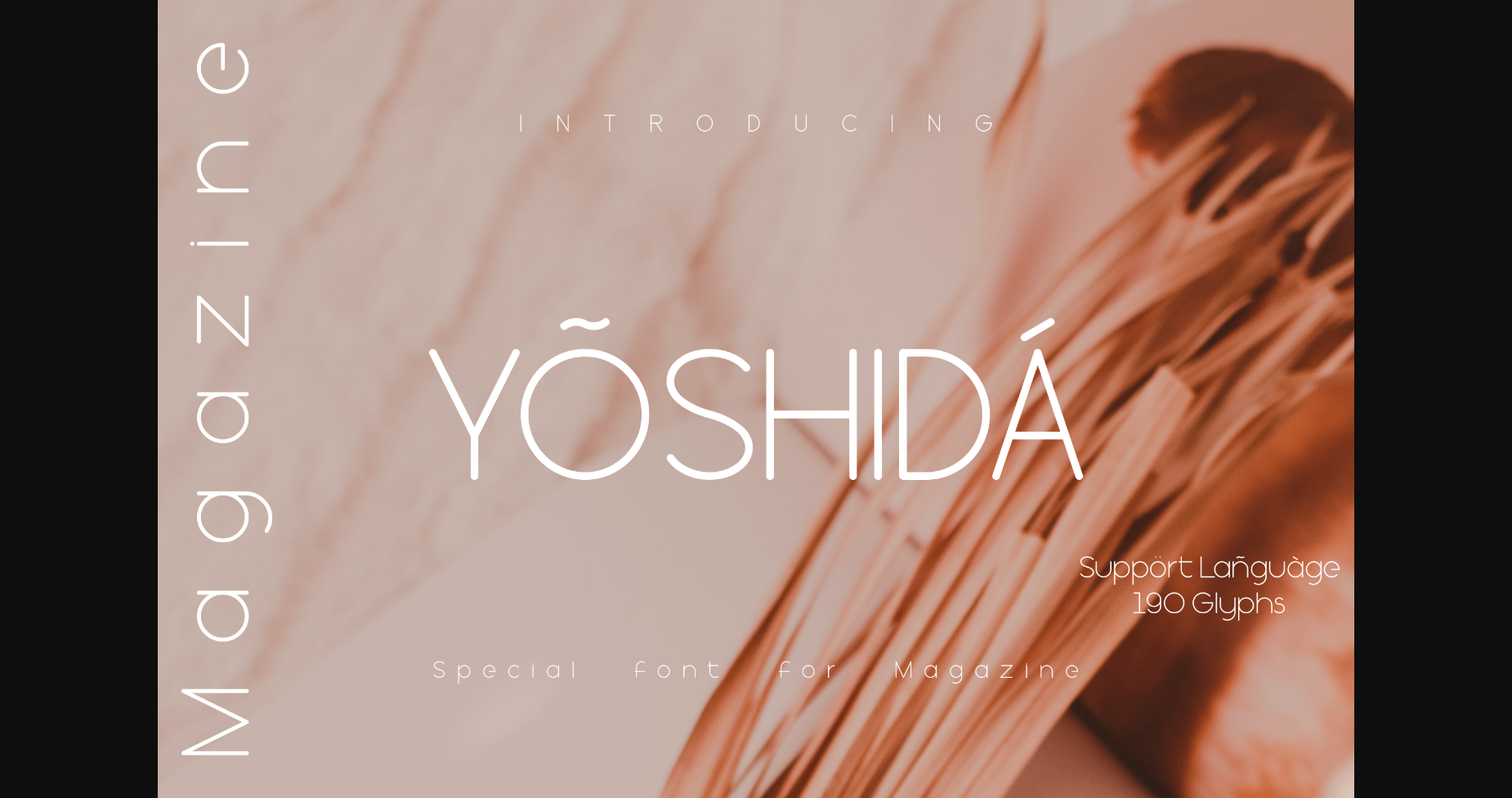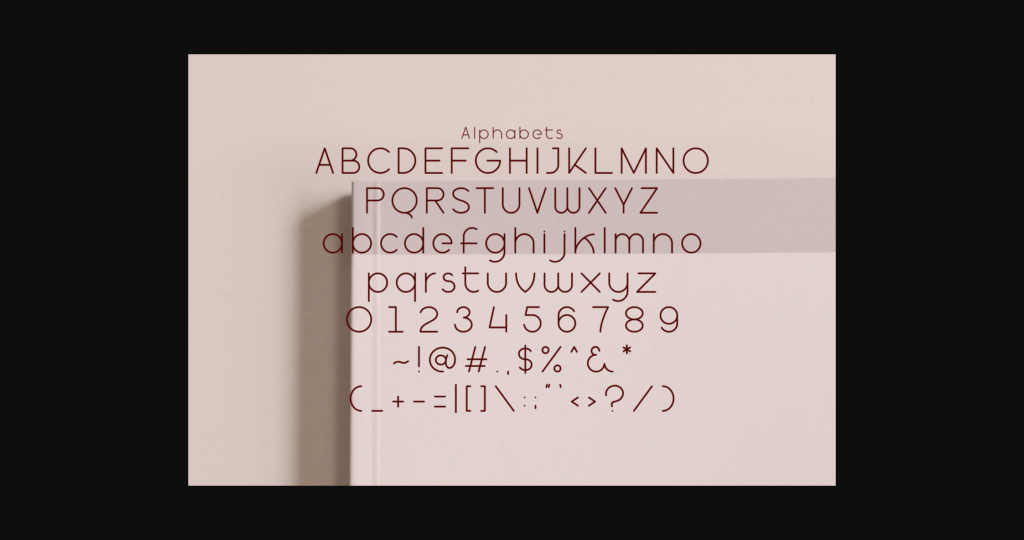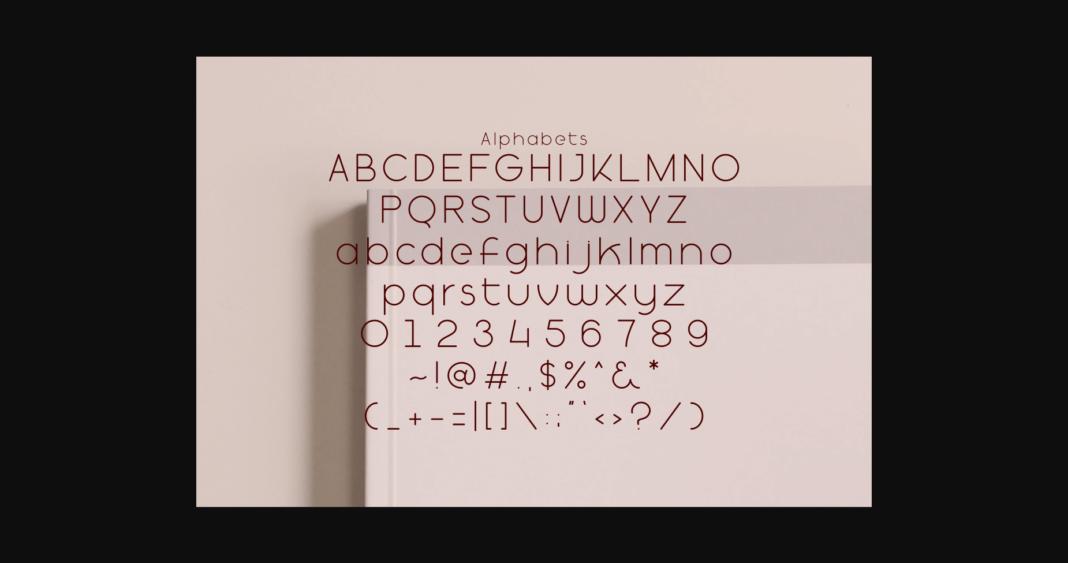
About Yoshida Magazine Font
Yoshida Magazine is a sleek and sophisticated sans-serif font designed for editorial perfection. With its thin letterforms and precise lines, it exudes elegance and professionalism. Perfectly suited for magazine layouts and editorial designs, Yoshida Magazine offers excellent legibility and a contemporary aesthetic. Embrace the clean and refined look of Yoshida Magazine for your next editorial project.